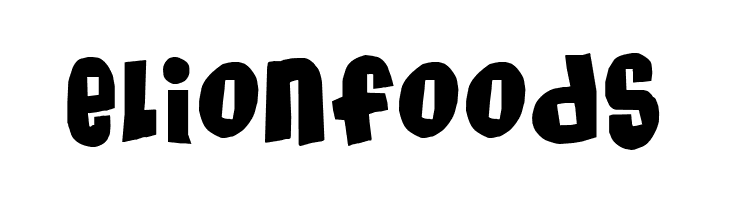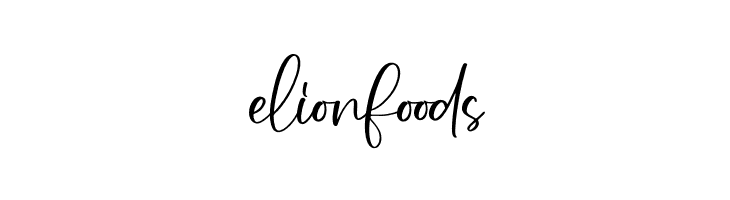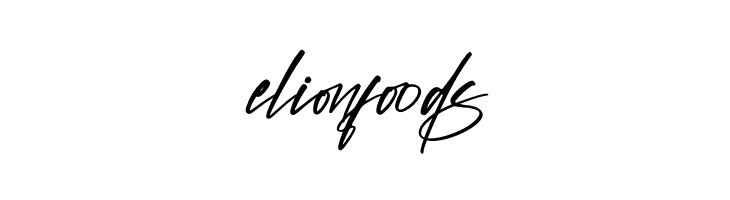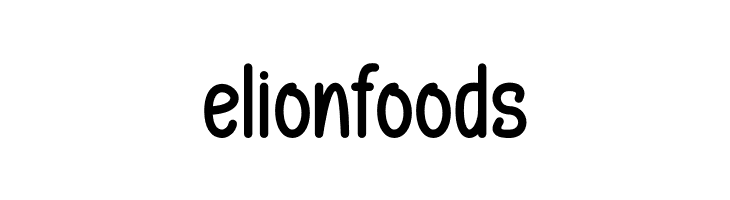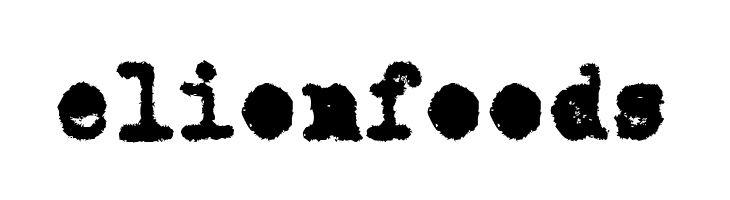
A bold, playful, and irregular font with a retro comic book style.
A bold, modern font with rounded edges and a strong, playful presence.
A whimsical and flowing script font with elegant, interconnected strokes.
A flowing, elegant script font with a natural handwritten style.
A fluid, cursive font with elegant swashes and a handwritten appearance.
A cursive, handwritten font with elegant, flowing strokes.
A lively, dynamic handwritten font with fluid, expressive letterforms.
A dynamic, expressive handwritten font with fluid strokes and a natural flow.
A playful, rounded font with a friendly and whimsical style.